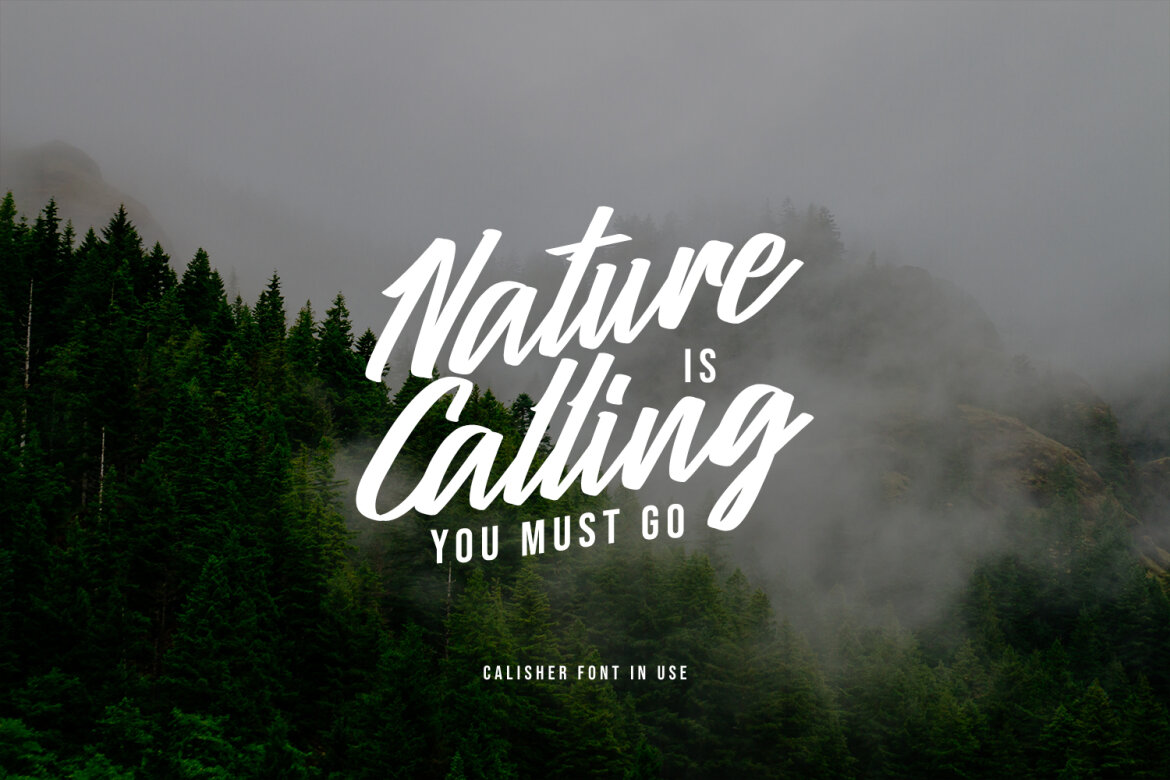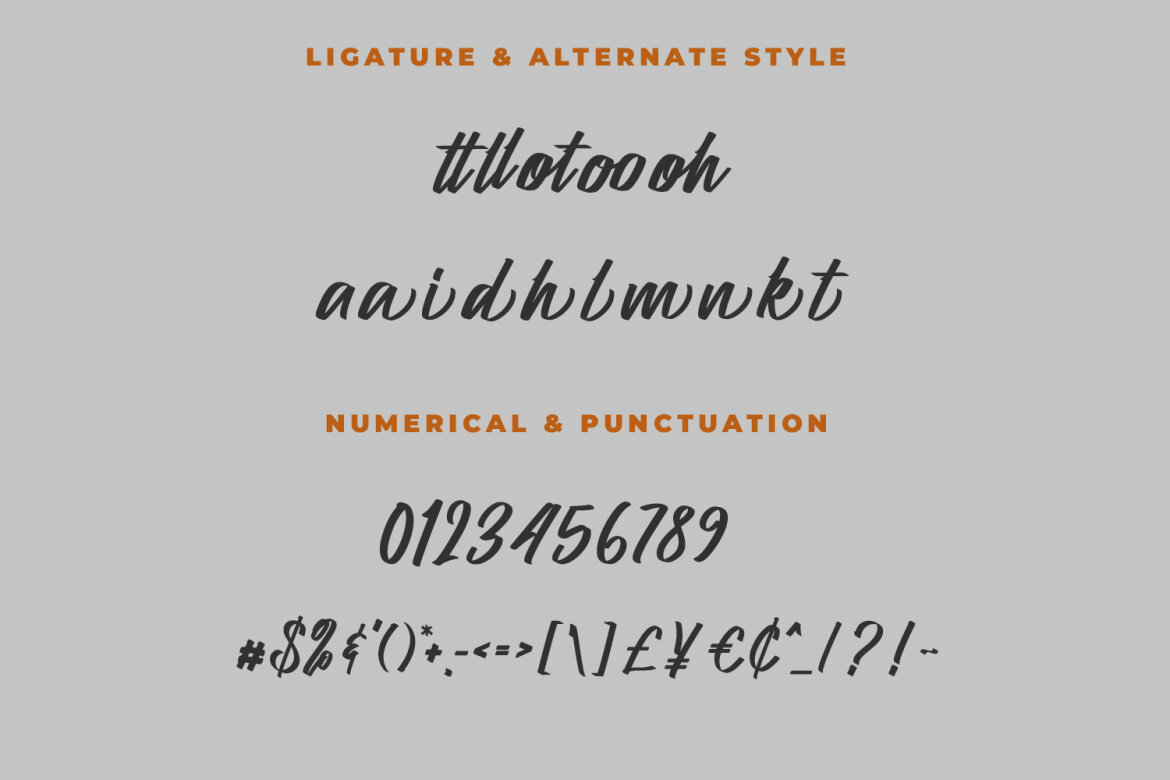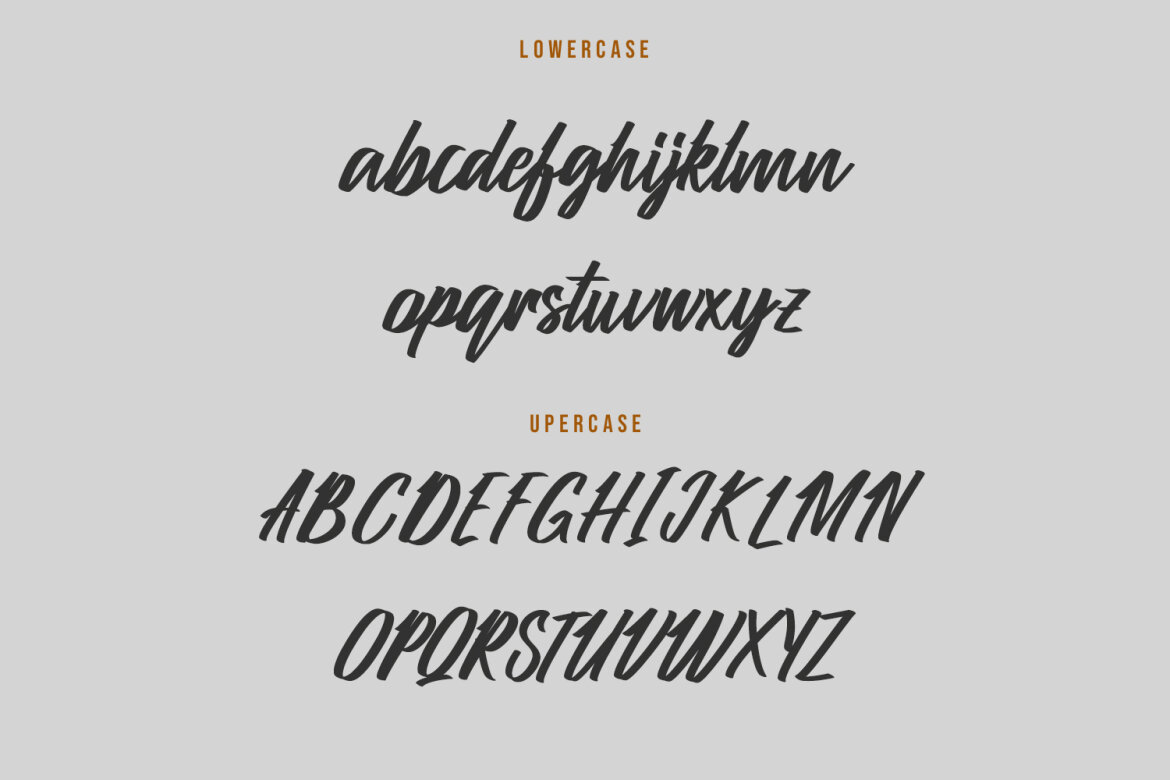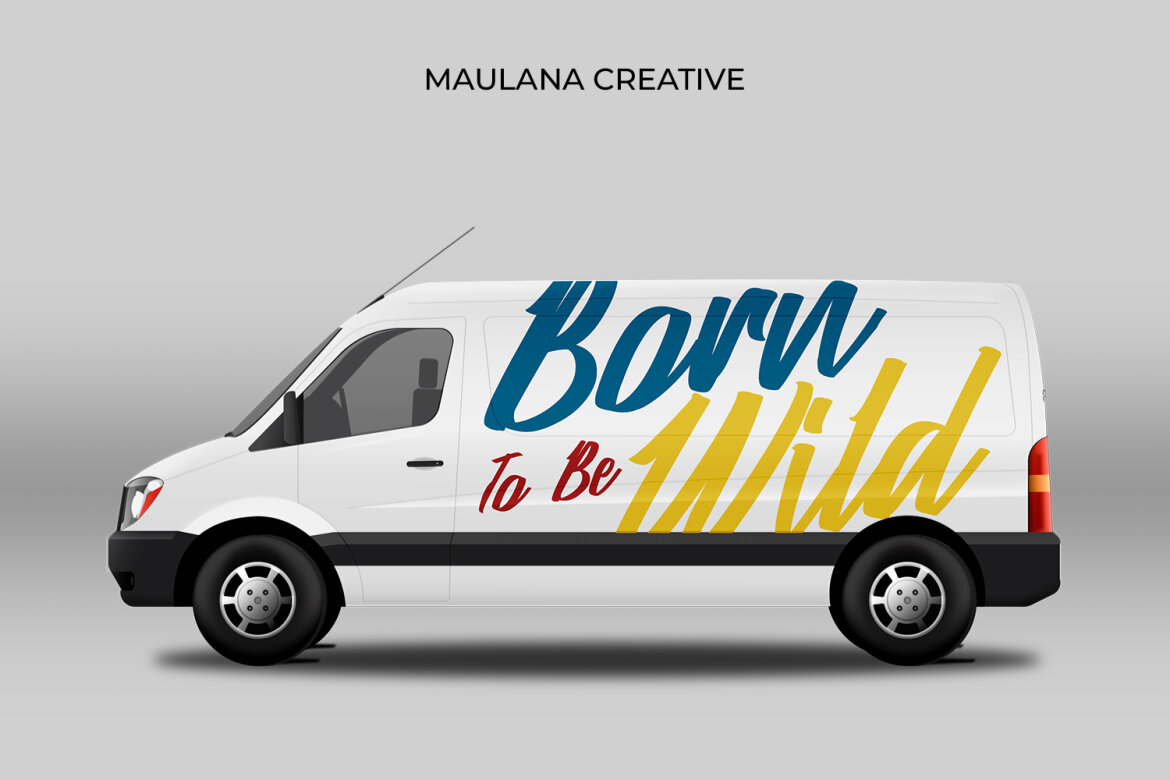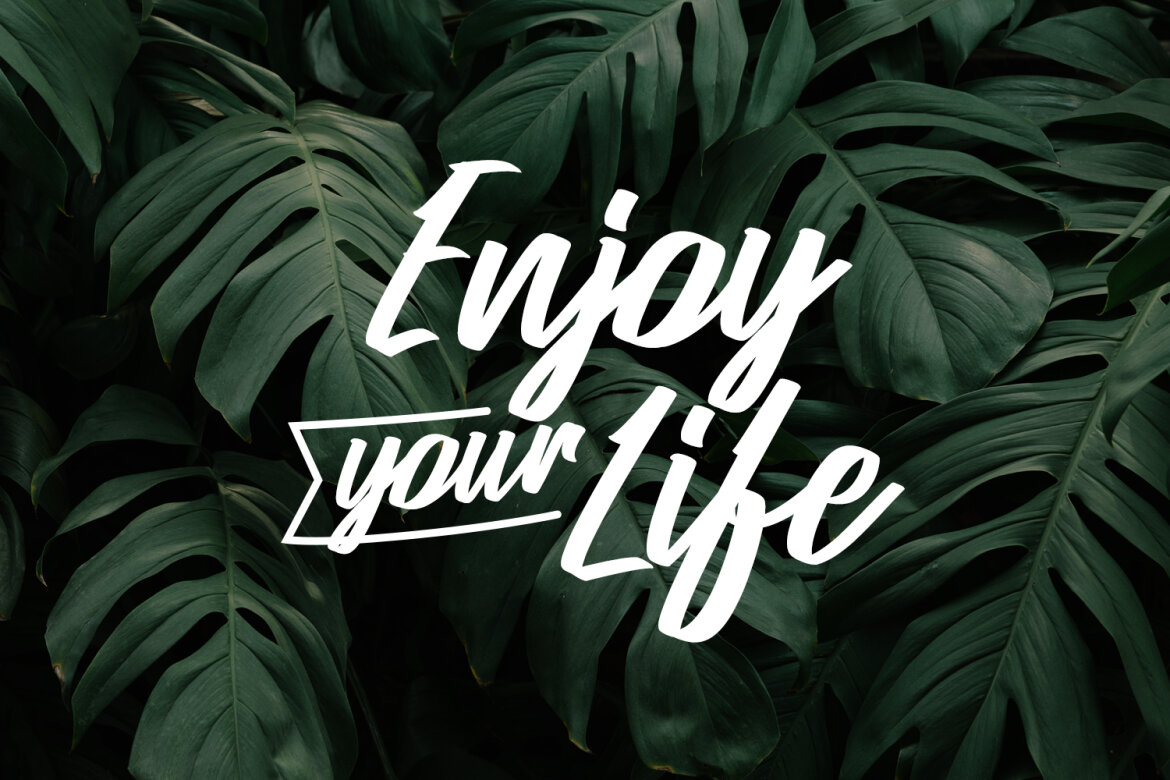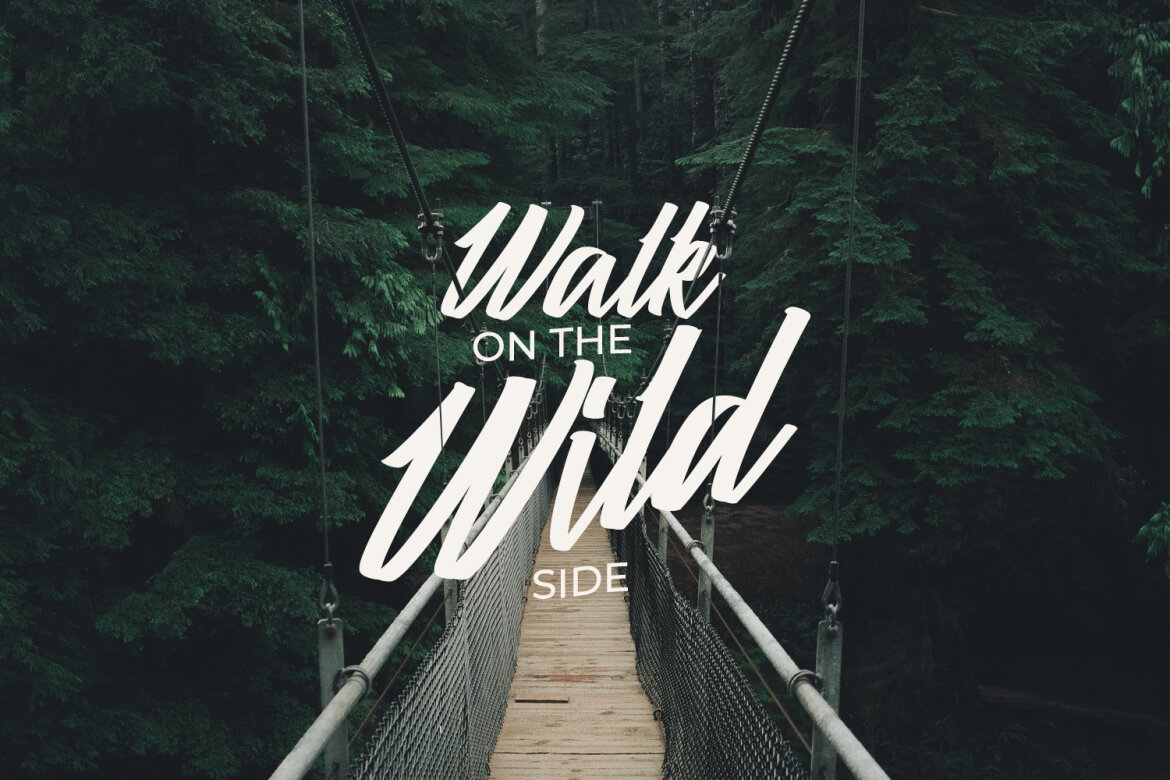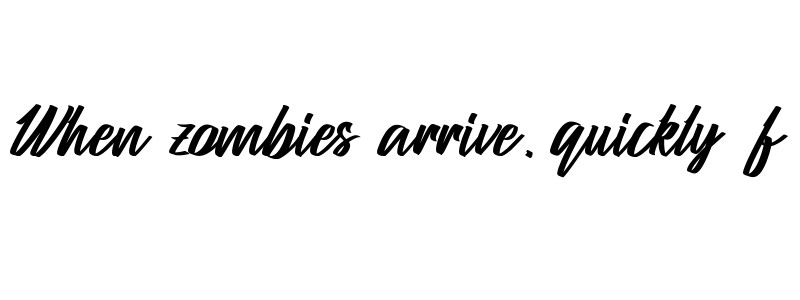
Calisher FREE Script Font
Calisher script font. This font is good for logo design, Social media, Movie Titles, Books Titles, a short text even a long text letter and good for your secondary text font with signature or script typeface. Make a stunning work with Calisher font.